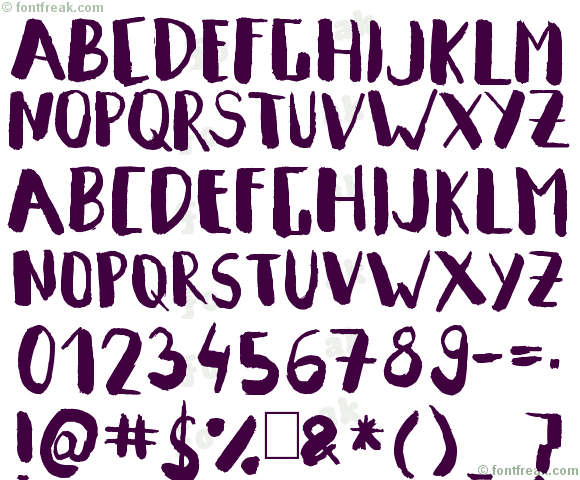
Summeron
About Summeron
The Summeron font, designed by Leonard Posavec, is a unique display typeface that stands out for its playful and informal aesthetic. This handwritten font exudes a charming, organic feel, making it perfect for projects that require a touch of whimsy and creativity. Its stroke weight varies, creating a dynamic visual interest, while the uneven, slightly rough edges add to its handcrafted appeal. The spacing is moderate, allowing for easy readability while maintaining a casual, approachable vibe.
Summeron is particularly well-suited for a variety of creative applications. It shines in wedding invitations, where its charming character can convey a personal touch. Additionally, it can enhance movie posters, capturing the viewer's attention with its lively style. Restaurant menus can benefit from the font's inviting design, making dishes feel more appealing and memorable. Content creators will also find this font useful for social media graphics, as it stands out in a crowded digital landscape, attracting audience engagement.
What sets the Summeron font apart is its ability to blend artistic flair with functionality. It captures the essence of summer and creativity, making it an excellent choice for anyone looking to infuse their work with a sense of joy and playfulness. For those interested, the Summeron font free download is readily available, allowing you to experiment with this delightful typeface in your next design project.